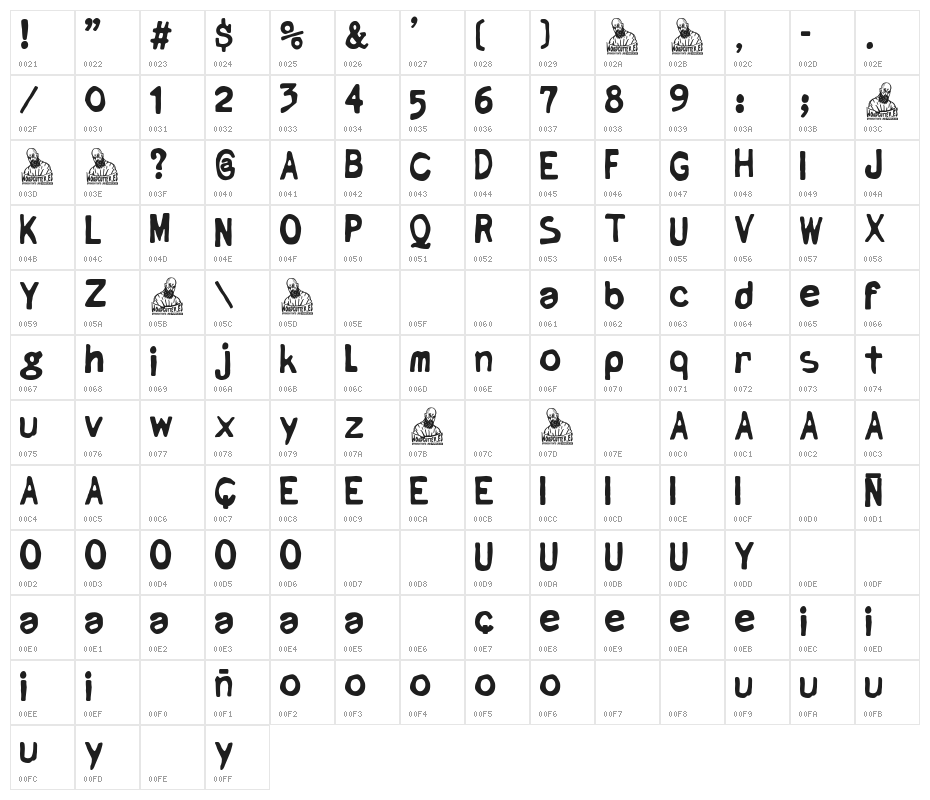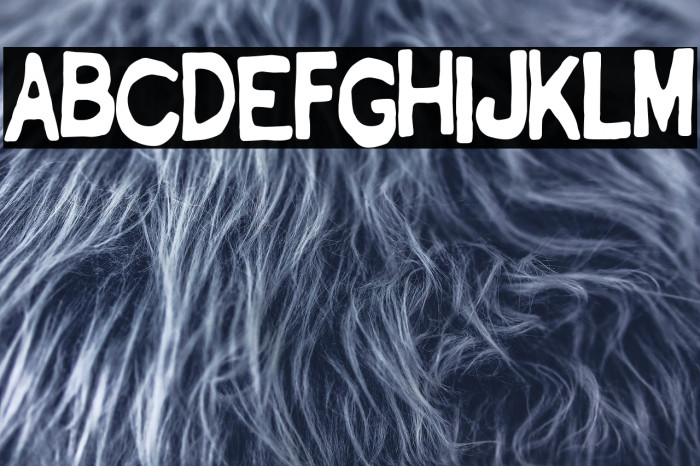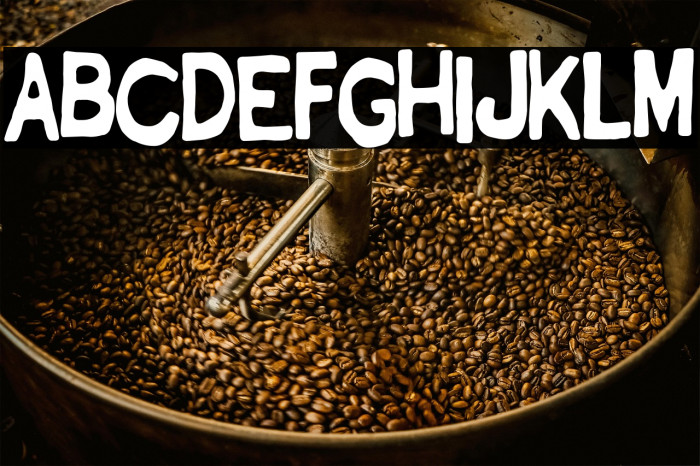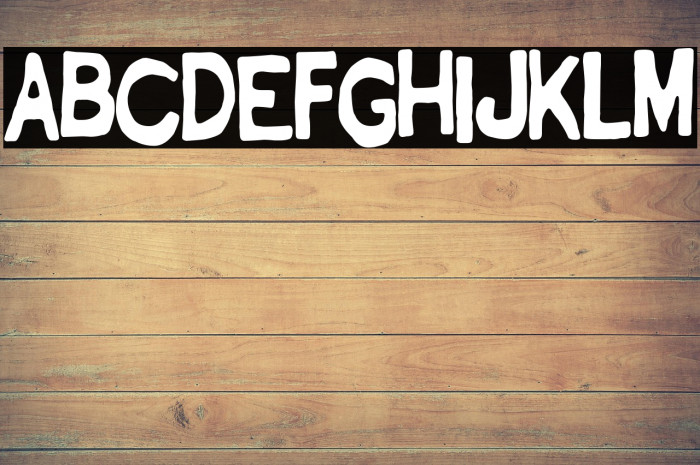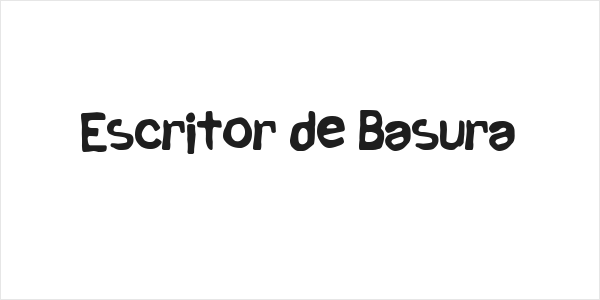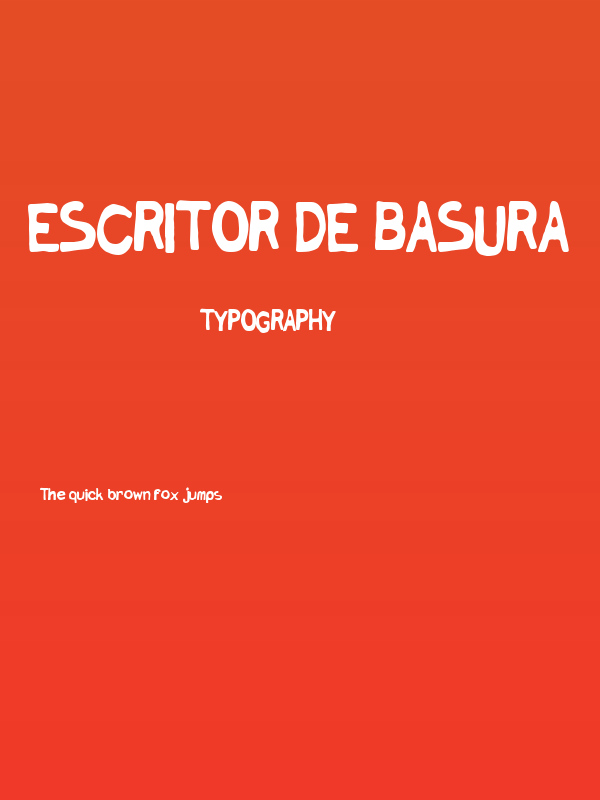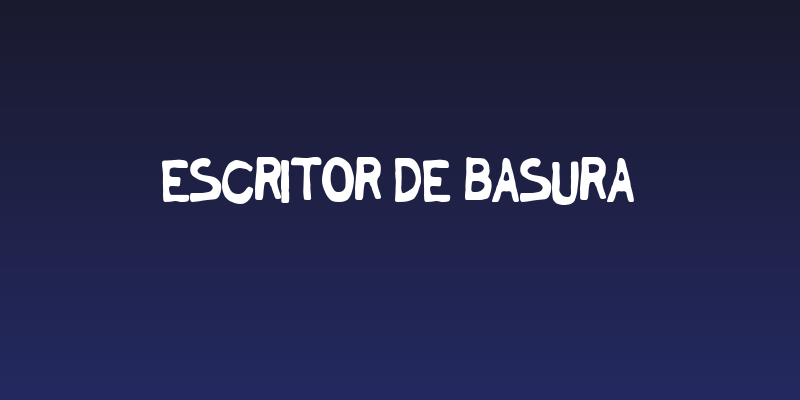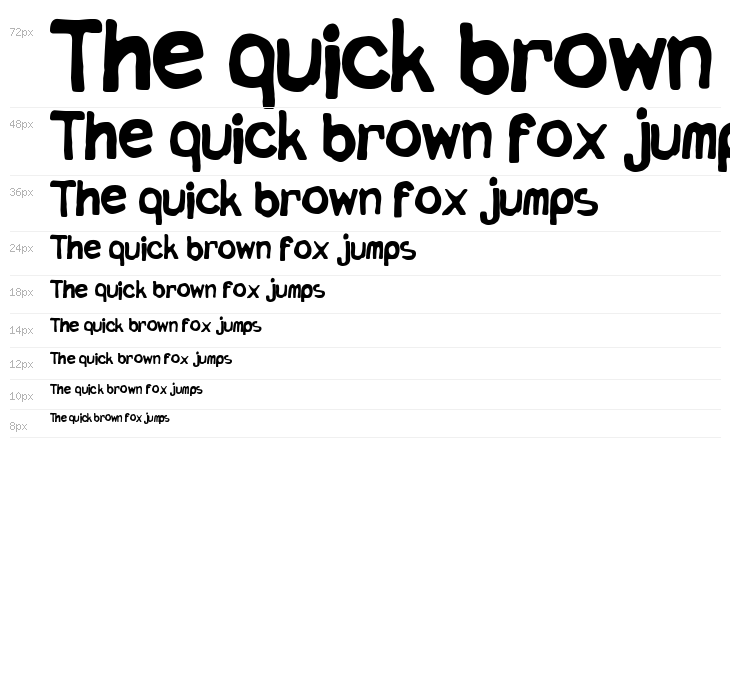
Escritor de Basura Font
Escritor de Basura Description
This font features a playful and bold handwritten style, characterized by its irregular and organic shapes. The letters have a casual, almost childlike appearance, with varying stroke widths that give it a dynamic and lively feel. The uppercase and lowercase letters maintain a consistent style, while the numbers and special characters complement the overall aesthetic. The font's unique personality makes it stand out, offering a sense of whimsy and creativity. Its boldness ensures readability while adding a touch of fun to any design project.
| Proposed Projects | Ideal for children's books, playful branding, casual invitations, and creative posters. |